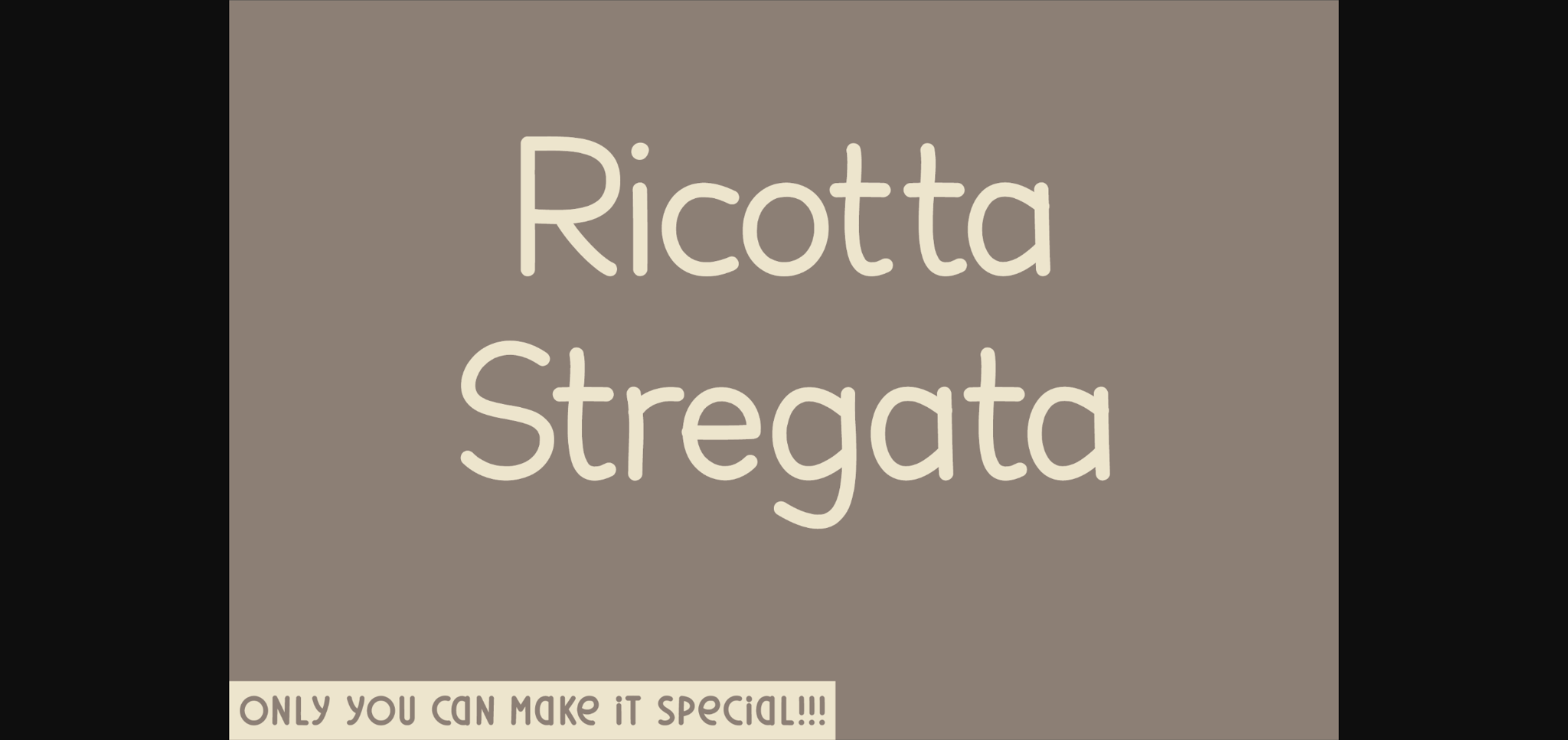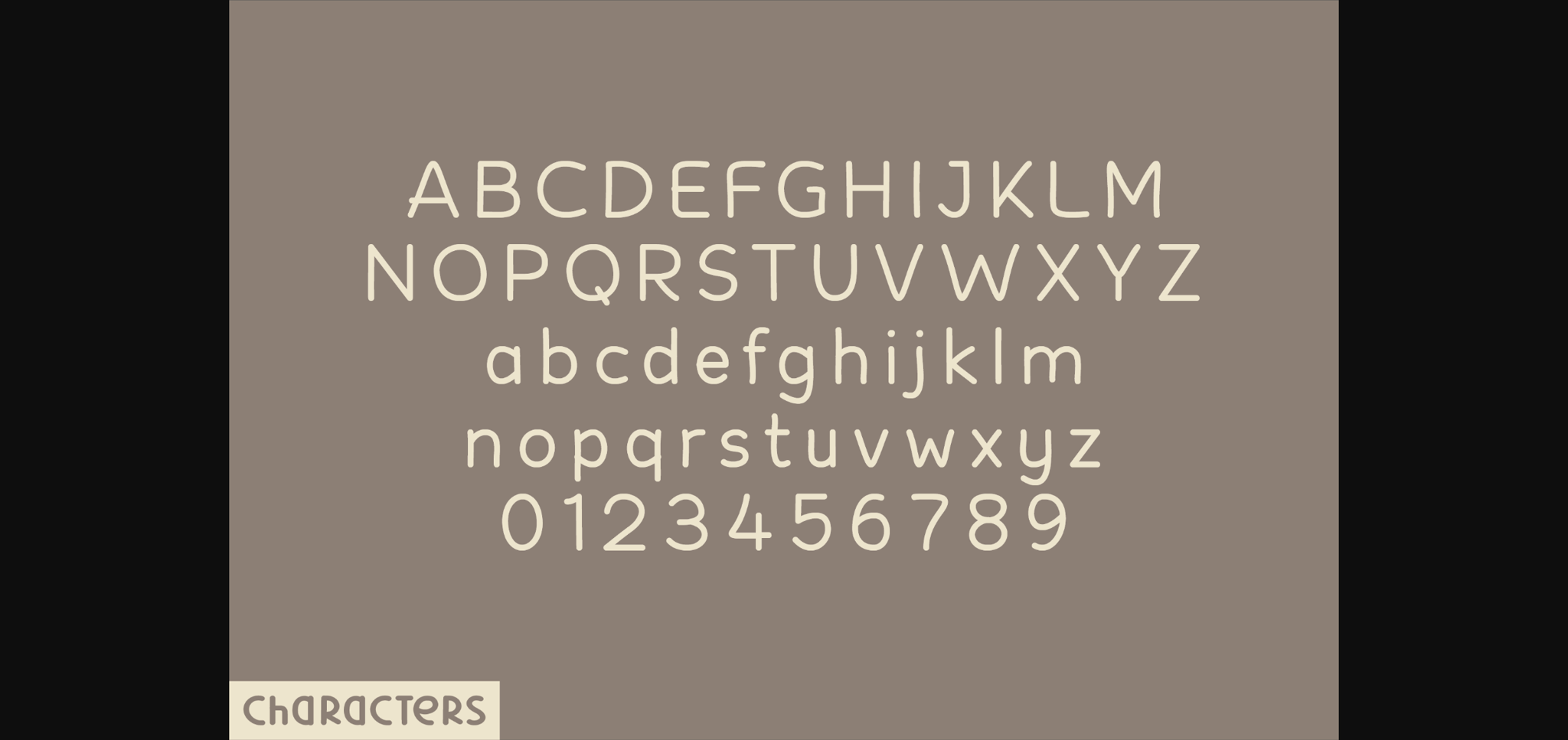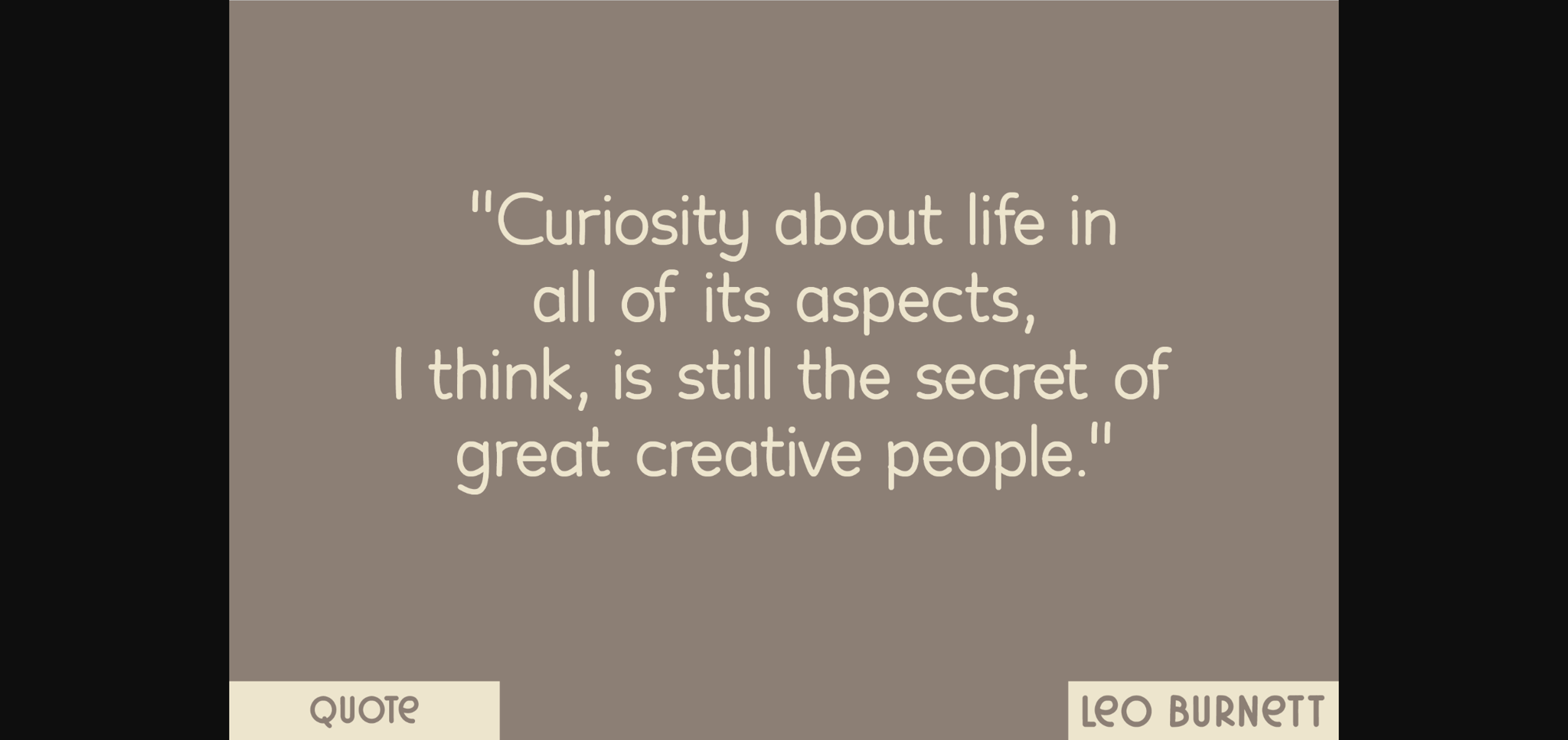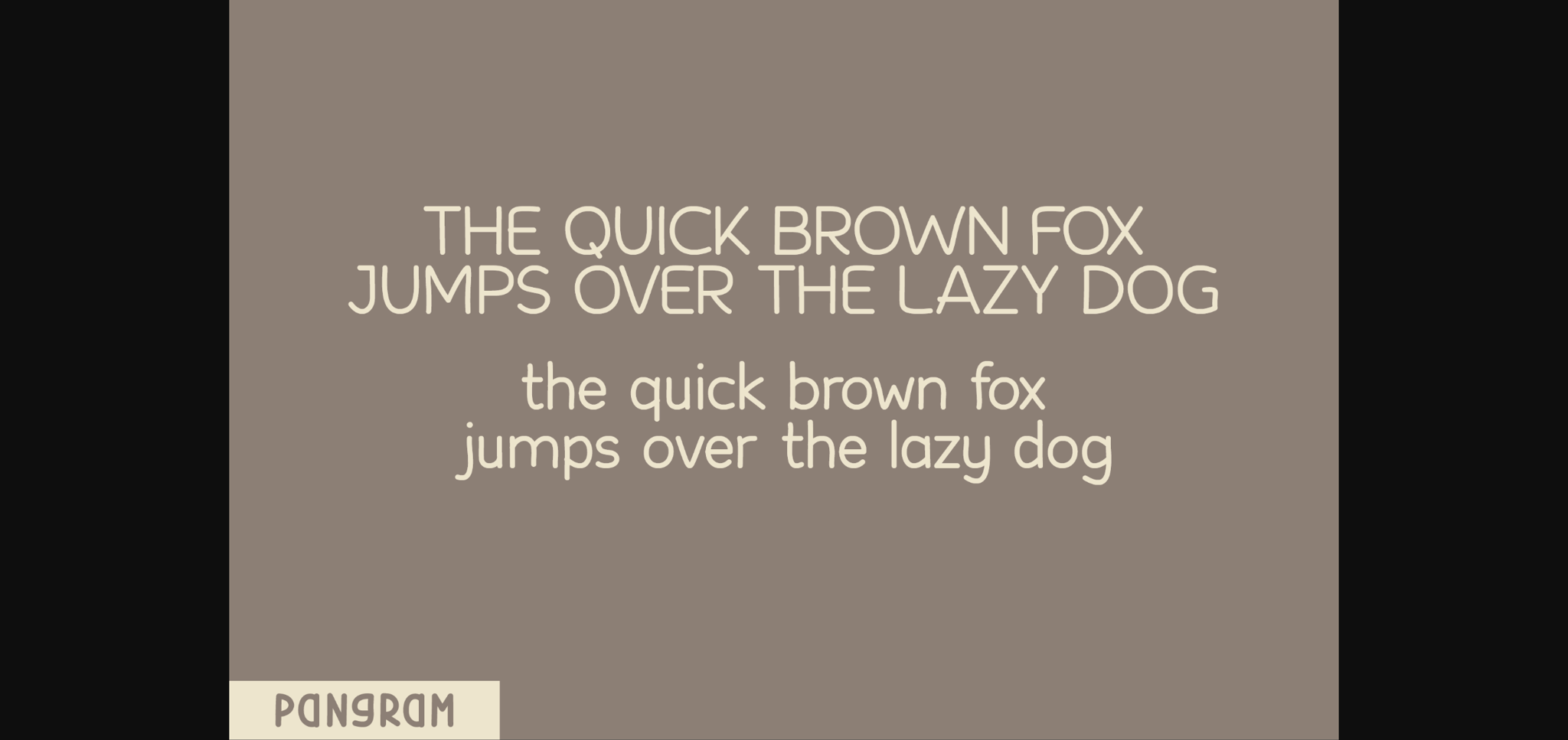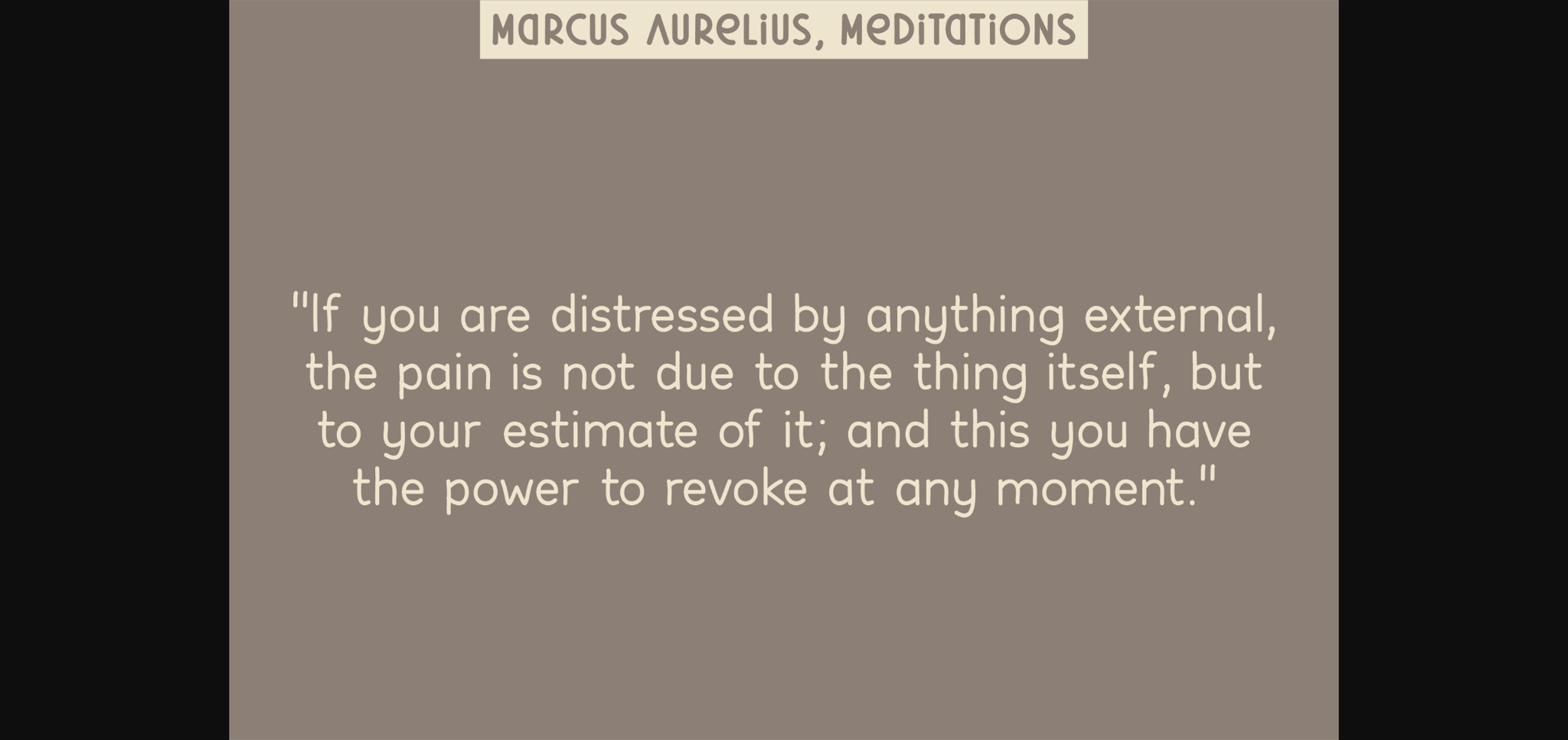
About Ricotta Stregata Font
Ricotta Stregata is a natural sans serif font created without changing a single node in each character’s indentation – this makes this font very interesting and unique. Perfect for quotes, notes, tees, and any product design.